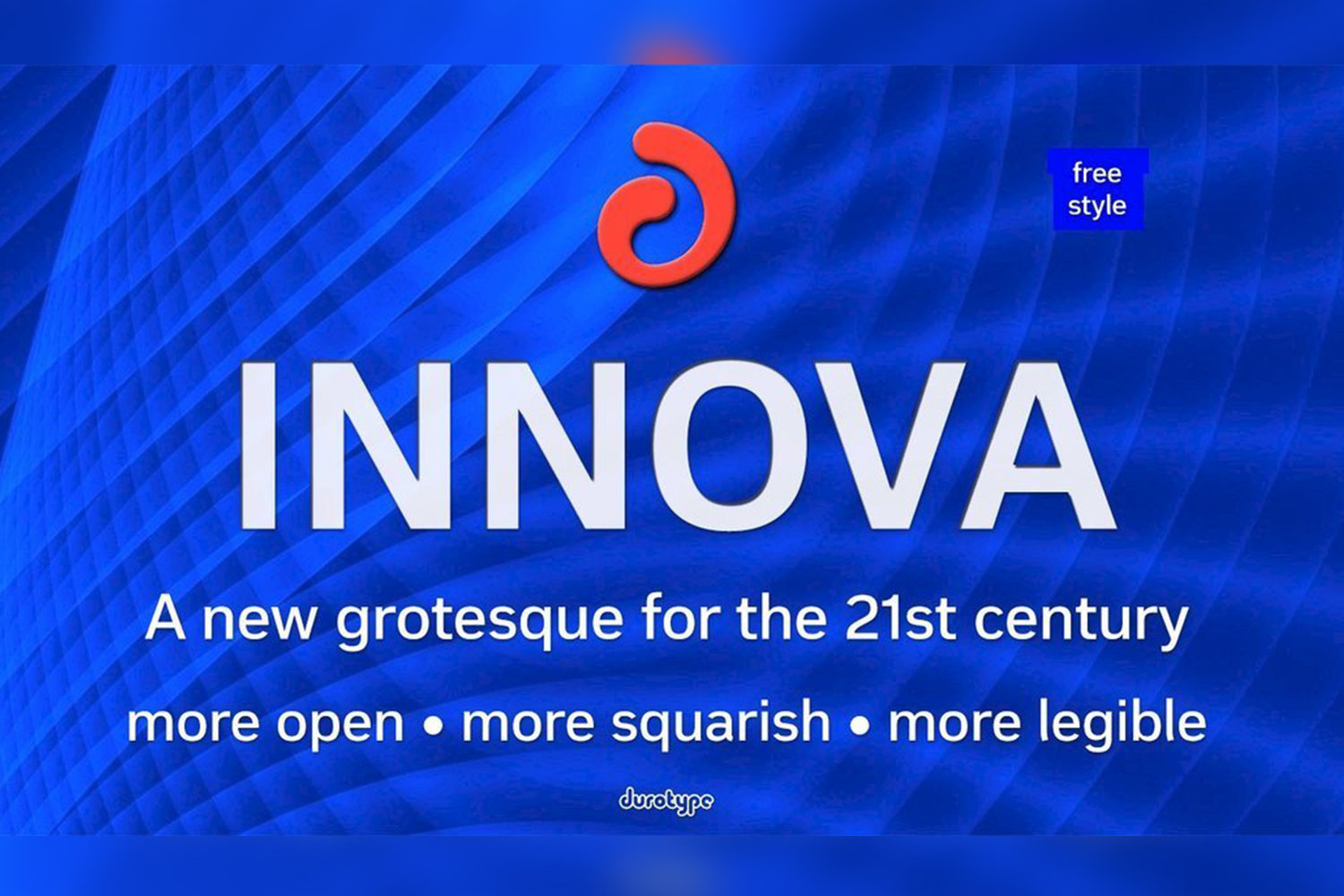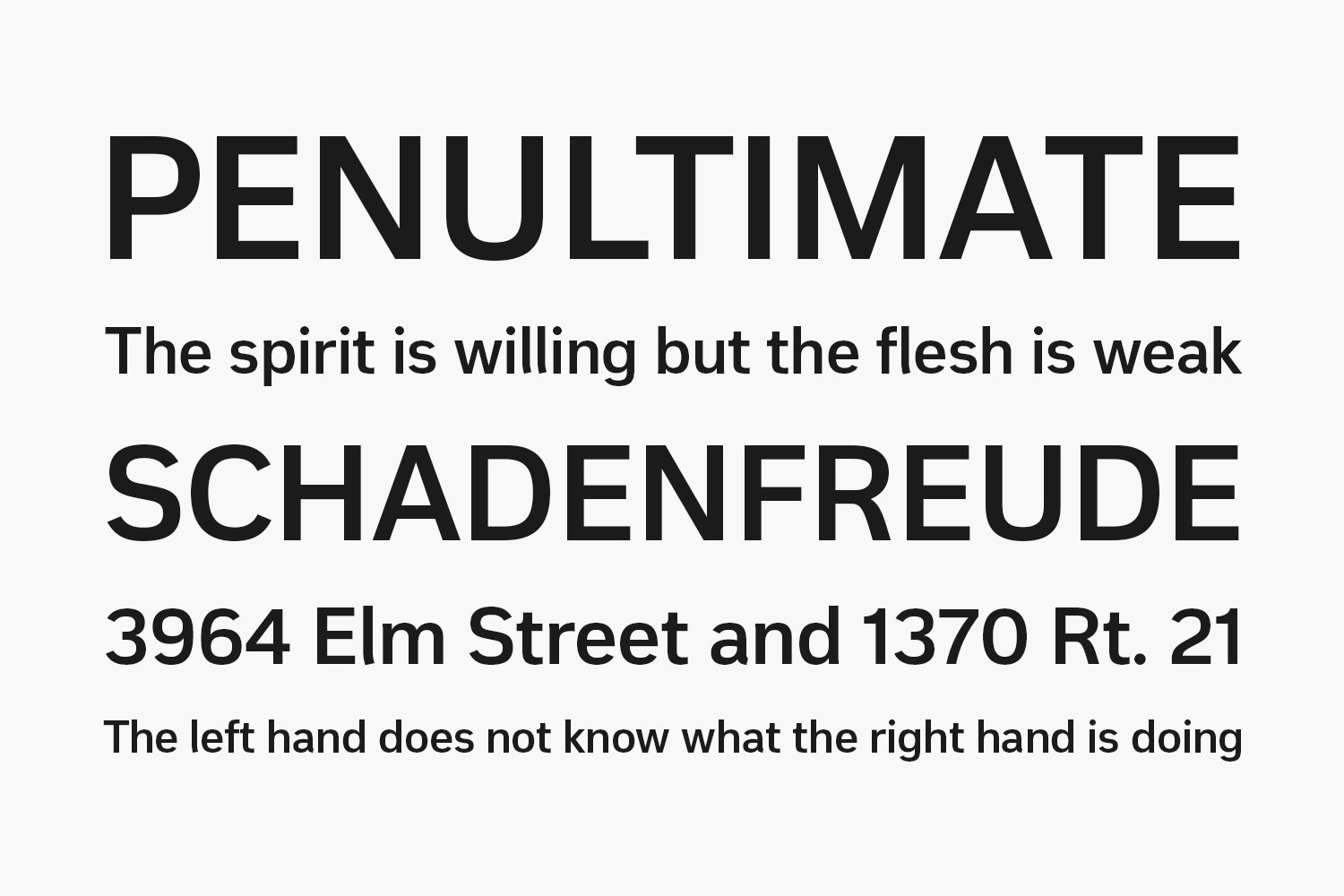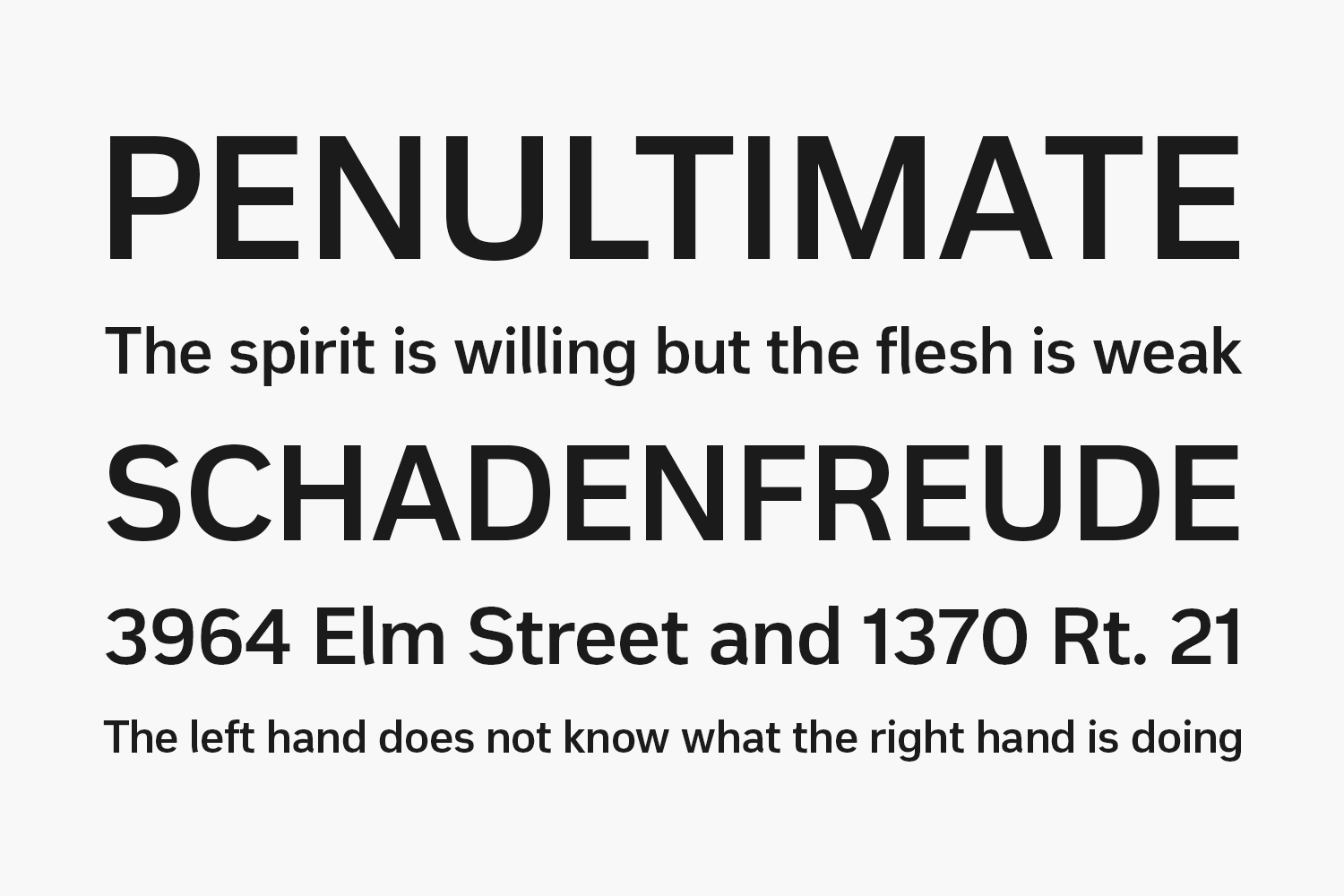
Innova is a new grotesque for the 21st century and consists of two families: ‘Innova’ and ‘Innova Alt’. The ‘Innova’ family has rectangular dots. The ‘Innova Alt’ family has round dots—making its personality a little friendlier.